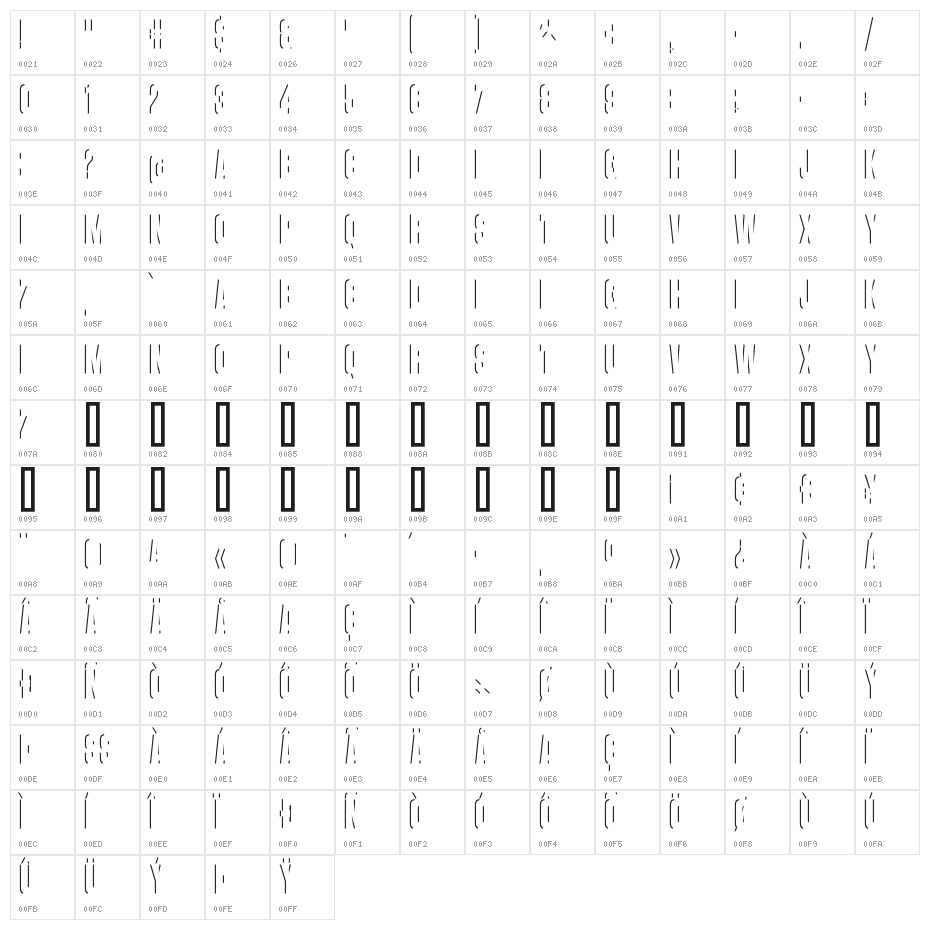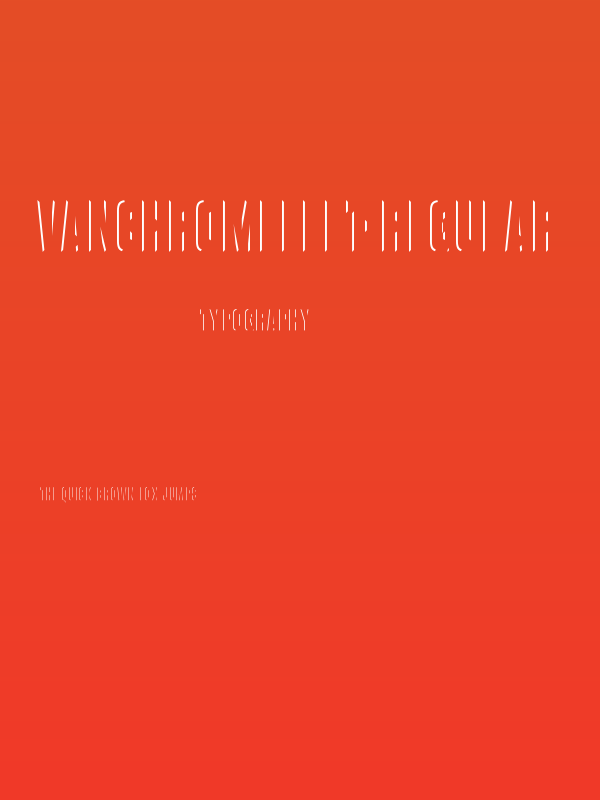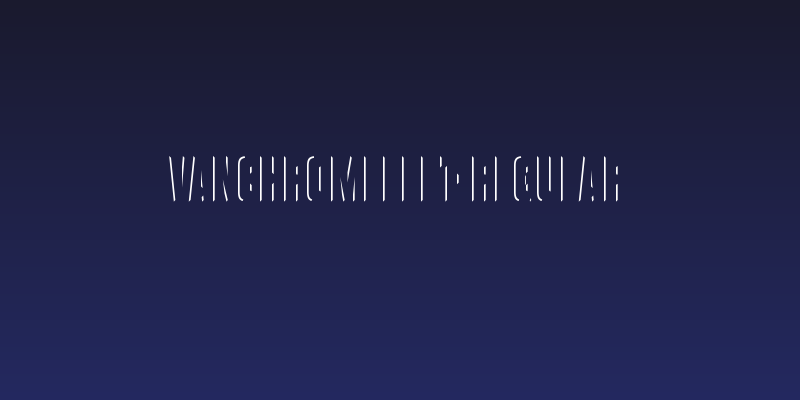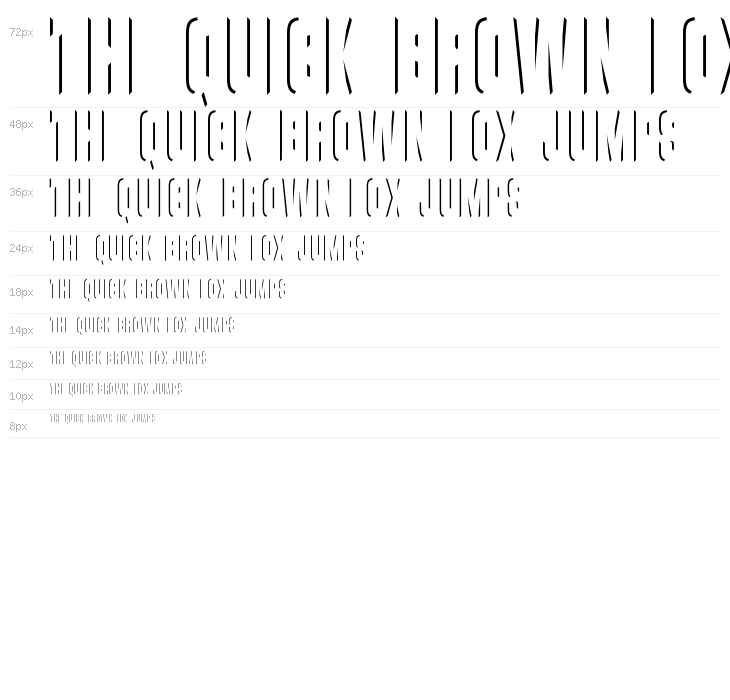
VanchromeLeft-Regular Font
VanchromeLeft-Regular Description
This font features a unique and modern design with a distinct stencil-like appearance. The characters are composed of bold, vertical lines with sharp angles and cutouts, creating a futuristic and industrial aesthetic. The uppercase and lowercase letters maintain a consistent style, with the numbers and special characters following suit. The font's geometric structure and high contrast between the thick and thin strokes make it stand out, while the spacing between characters is tight, adding to its compact and efficient look.
Proposed ProjectsIdeal for branding, posters, and signage where a modern and industrial look is desired.